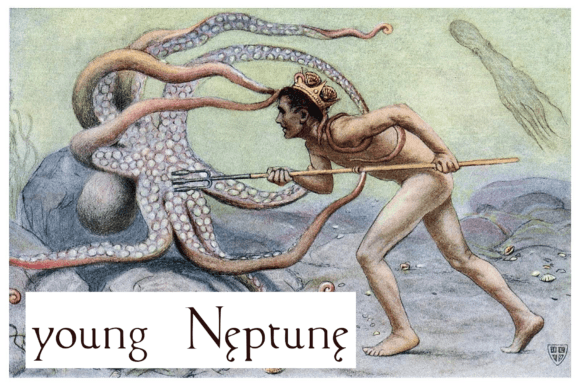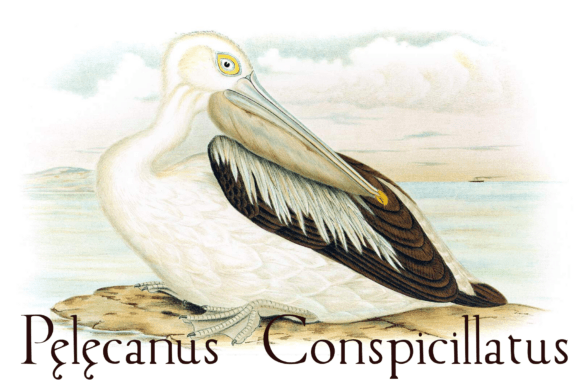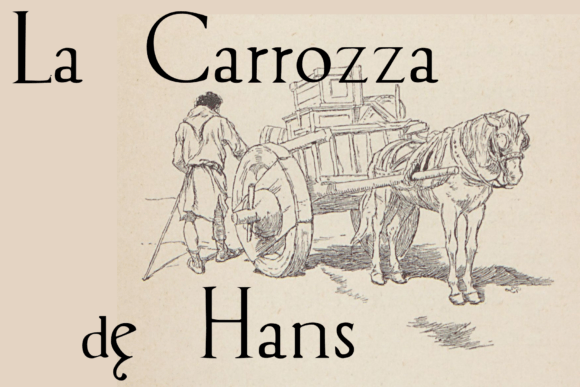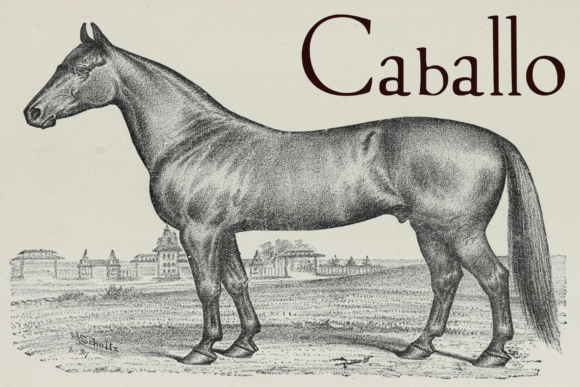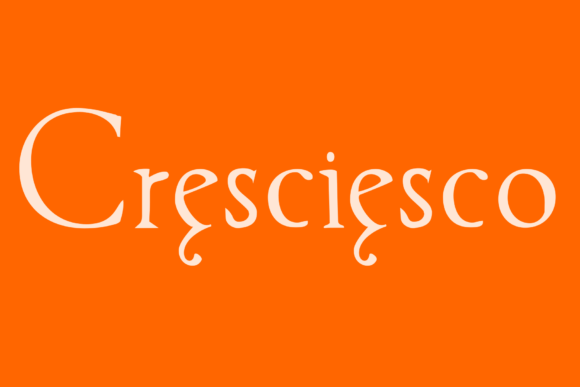
Cresciesco Font: Elevate Your Designs with Elegance and Sophistication
In the world of typography, fonts play a crucial role in conveying the tone and personality of a brand or design. For those seeking a refined and classic aesthetic, Cresciesco font is an excellent choice. This elegant serif font boasts a subtle flair of sophistication, making it perfect for a variety of applications, from branding and editorial design to invitations and high-end projects.
The Characteristics of Cresciesco Font
Cresciesco font is distinguished by its flowing curves and delicate serifs, which give it a timeless, classic appearance. While its roots are firmly planted in traditional typography, Cresciesco also maintains a modern touch, making it versatile and adaptable to a wide range of design contexts. The font’s elegant lines and refined features evoke a sense of luxury and sophistication, adding a touch of glamour to any project.
Key Features of Cresciesco Font
- Elegant Serif Design: Cresciesco’s serif design is both classic and refined, lending an air of sophistication to any text.
- Flowing Curves: The font’s flowing curves add a dynamic and fluid feel, balancing out the traditional serif elements.
- Timeless Appeal: Cresciesco’s design ensures it remains relevant and stylish, even as design trends evolve.
- Modern Touch: Despite its classic roots, Cresciesco incorporates modern elements that make it suitable for contemporary designs.
Applications of Cresciesco Font
Cresciesco font is incredibly versatile, making it suitable for a variety of design applications. Here are some of the ideal uses for this elegant font:
Branding
For brands aiming to convey a sense of elegance, luxury, and sophistication, Cresciesco font is an excellent choice. It can be used in logos, packaging, and marketing materials to create a cohesive and refined brand image.
Editorial Design
In editorial design, the readability and aesthetic appeal of a font are paramount. Cresciesco’s clear and elegant design makes it perfect for use in magazines, newspapers, and digital publications, enhancing the reader’s experience with its classic yet modern feel.
Invitations and Event Design
For special occasions such as weddings, galas, and formal events, Cresciesco font adds a touch of grace and charm to invitations, programs, and other event materials. Its sophisticated appearance ensures that the event is perceived as elegant and prestigious.
High-End Projects
Any project that demands a high level of refinement and aesthetic appeal can benefit from Cresciesco font. Whether it’s a luxury product launch, a high-end fashion brand, or a sophisticated advertising campaign, Cresciesco adds a level of elegance that elevates the design.
Tips for Using Cresciesco Font
To maximize the impact of Cresciesco font in your designs, consider the following tips:
- Pair with Complementary Fonts: While Cresciesco is elegant on its own, pairing it with a simple sans-serif font can create a striking contrast and enhance readability.
- Adjust Line Spacing: Ensure adequate line spacing to maintain readability, especially in longer texts.
- Use Appropriate Colors: Cresciesco looks best in classic colors such as black, navy blue, and elegant gold tones. Choose colors that complement the font’s sophisticated feel.
Cresciesco font is a versatile and elegant serif font that brings a touch of sophistication and refinement to any design. Its timeless appeal, combined with a modern touch, makes it suitable for a wide range of applications, from branding and editorial design to invitations and high-end projects. By incorporating Cresciesco into your designs, you can ensure a classic yet contemporary look that elevates your work to new heights of elegance and charm.
Whether you’re a designer looking for the perfect font to convey a client’s brand values or a crafter seeking to add a touch of sophistication to your projects, Cresciesco font is an excellent choice. Its flowing curves, delicate serifs, and refined aesthetic make it a valuable addition to any design toolkit.